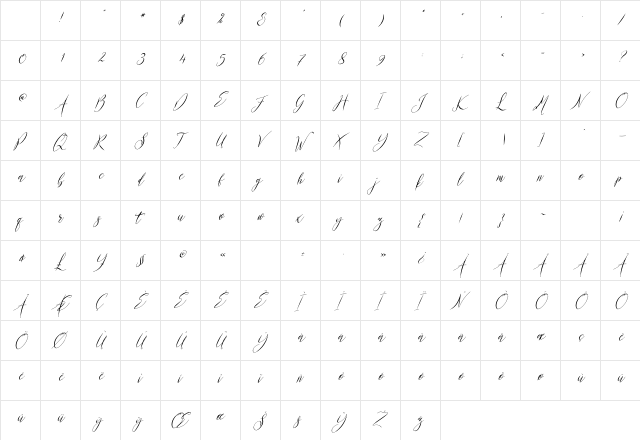
Complete Pariss Hillton Italic glyph index. Displaying only characters natively supported by Pariss Hillton Italic font.
Pariss Hillton is a composed and adaptable typeface that performs quietly and consistently across a wide range of design contexts. The slanted form adds forward momentum and visual energy.